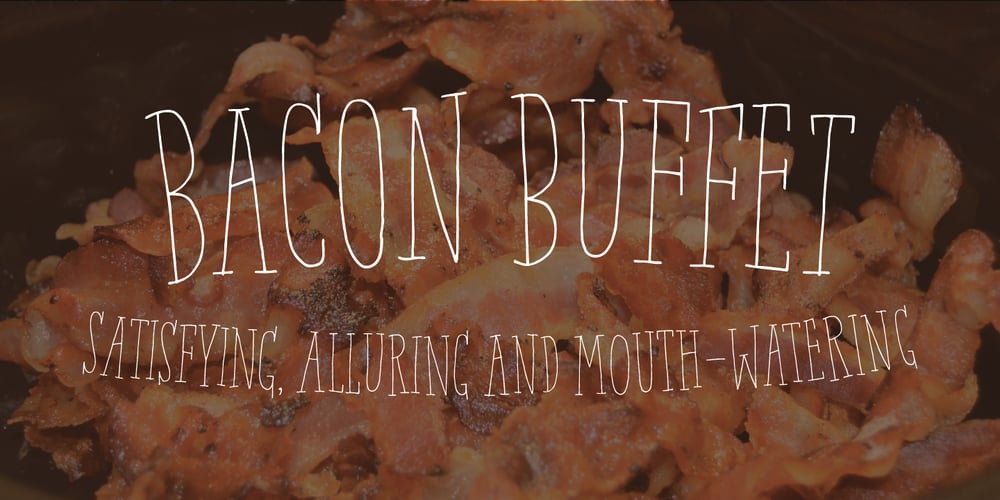
Bacon Buffet Font Family was designed by Jakob Fischer and published by PizzaDude.dk. Bacon Buffet contains 1 styles and family package options. Is there anything more satisfying, alluring or mouth-watering than bacon? Comes with contextual alternates, which means that the font has got 8 different versions of each letter – this cycles as you type!